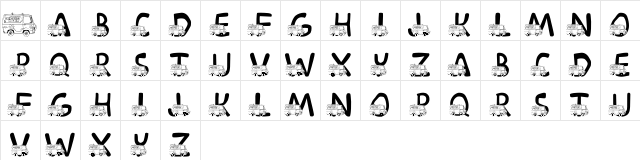
LMS Mystery Machine Regular Font Preview
LMS Mystery Machine Regular
Design Context for LMS Mystery Machine Typeface
LMS Mystery Machine is a composed and adaptable typeface that performs quietly and consistently across a wide range of design contexts.